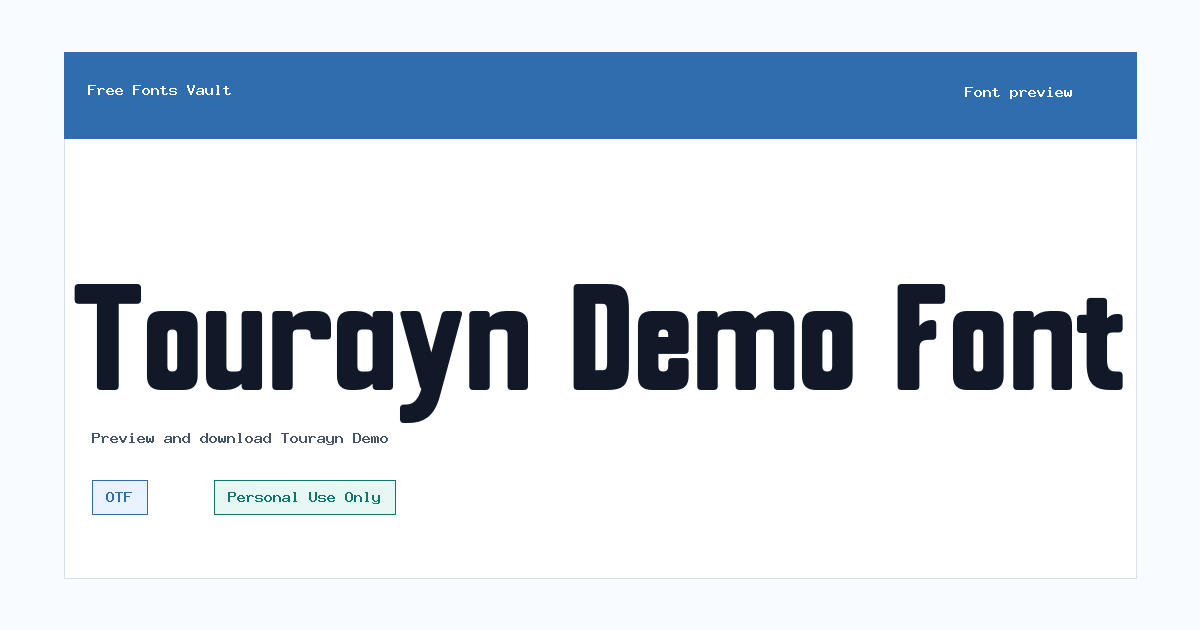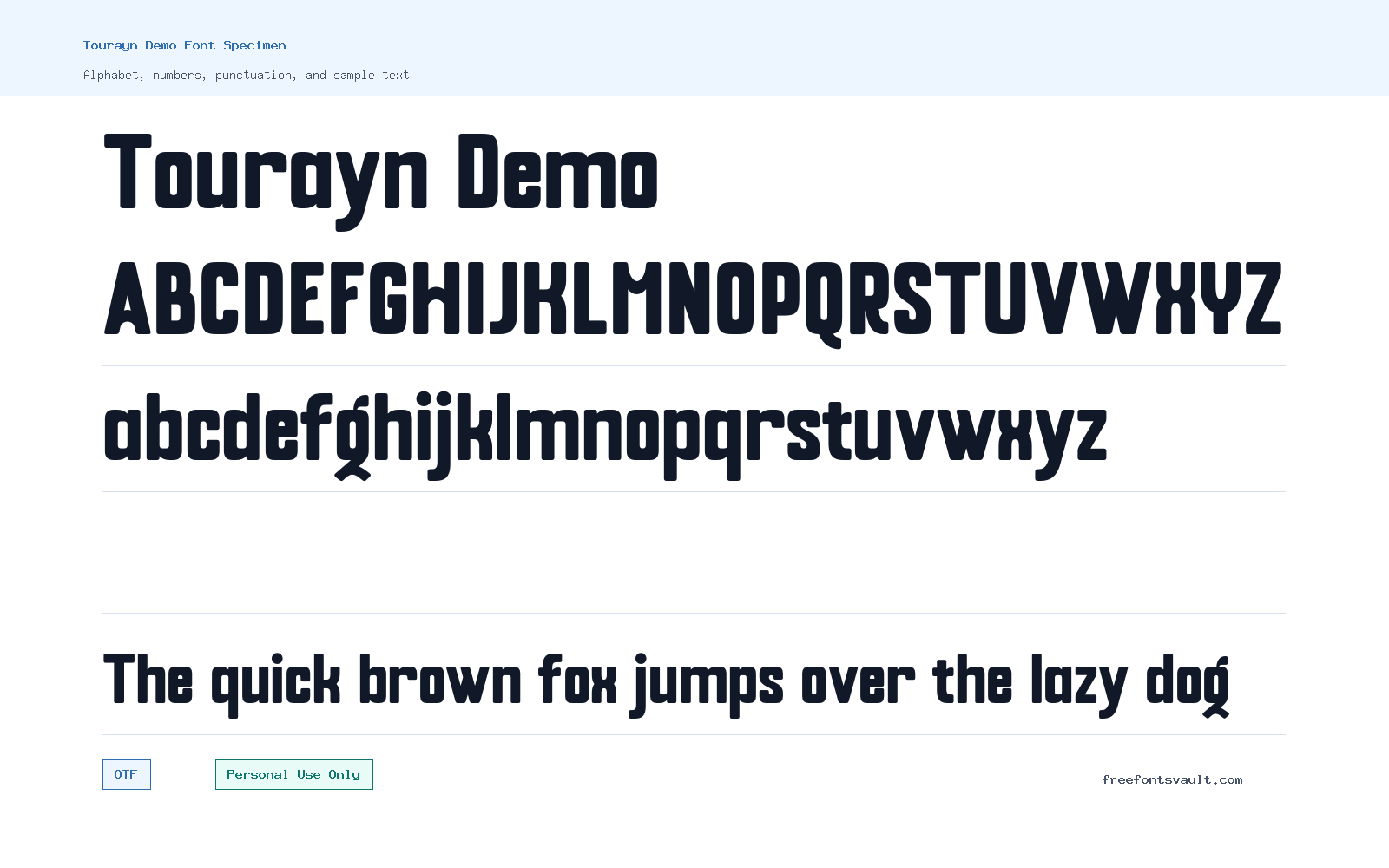
Tourayn Demo
Tourayn Demo font preview showing the family name
Tourayn Demo Font
Tourayn Demo font specimen showing alphabet, numbers, and sample text
Tourayn Demo font.
Tourayn Demo is a personal-use font from Ragamkata Studio. It is a good choice to test when you need a clean display typeface for short text, branding drafts, poster layouts, and visual experiments before deciding whether it fits a project.
About Tourayn Demo
Tourayn Demo comes as an OTF Regular style with normal weight settings. Because the verified details are limited, the safest way to judge it is through the live preview: type your own words, check uppercase and lowercase shapes, look at spacing between common letter pairs, and test the exact phrase you plan to use. That matters most for logo sketches, poster titles, packaging concepts, thumbnails, and social graphics, where a font can look strong in one word but less balanced in another.
Use Tourayn Demo for short, controlled text rather than long reading blocks until you have tested its rhythm at different sizes. It can be useful for logo concepts, headline mockups, web hero sections, editorial titles, quote cards, and personal design studies. For pairing, keep the supporting font simple. A neutral sans serif or a readable serif can handle body text while Tourayn Demo carries the main visual emphasis. If you use it in a web or app mockup, check how the OTF renders in your design tool and export process, especially at small sizes and on high-density screens.
• Regular style with normal weight settings for straightforward testing in headings and short display text
• Useful for testing names, poster titles, logo words, hero text, and social media graphics before choosing a final type direction
• Logo concepts and wordmark sketches where you can test the exact brand name before committing
• Poster headings, event graphics, and short promotional layouts for personal projects
• Website hero mockups, landing page drafts, and UI concept screens that need a display-style headline
• Social posts, quote cards, thumbnails, and presentation title slides
• Typography practice, moodboards, and private design exploration
Who designed Tourayn Demo?
Tourayn Demo is listed with Ragamkata Studio as the designer.
Is Tourayn Demo good for body text?
Test it carefully before using it for long paragraphs. With the verified details available, it is safer to use it first for short text such as headings, names, titles, and display layouts.
What should I pair with Tourayn Demo?
Use a simple supporting typeface that does not compete with the headline. A neutral sans serif works well for clean layouts, while a readable serif can add contrast in editorial or poster designs.